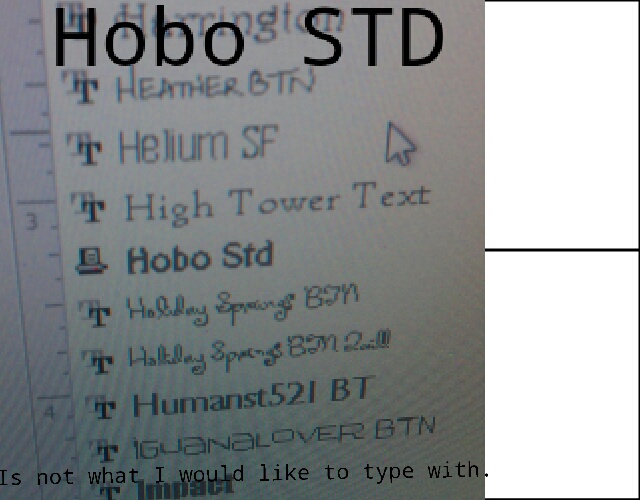
Hobo Std Font Generator
Hobo Std Font Generator. This font family comes in 3 different weights includes bold, italic, and regular. Click to find the best 6 free fonts in the hobo style.
In 1915, this font family released the light hobo version. Its design carried itself well, especially in its usage for titles, and has seen use in a variety of popular culture examples. Hobo font is a famous typeface with very beautiful and decorative characters.
Hobo, firstly called adface, was sooner or later patented in 1915 at the side of the mild hobo. Font generator ( ͡° ͜ʖ ͡°) designers; This font family comes in 3 weights, which are regular, bold, and italic.
The Font Is Based On The Lettering Style Of 1930S American Hobo Signs.
The font collection section is the place where you can browse, filter, custom preview and download. The font features two weights, regular and bold, each with italic variants. It was published in 1910 by a famous american type founders.
Also, The Hobo Std Medium Font Is Perfect For Branding Projects, Housewares Designs, Product Packaging, Or.
The hobo std font is a dynamically tapering typeface in which all strokes are accentuated curves, achieving a terrific ornamental effect. 383 search results for hobo std. Hobo nearly shows a freely drawn alphabet with its uncommon sturdy roundness.